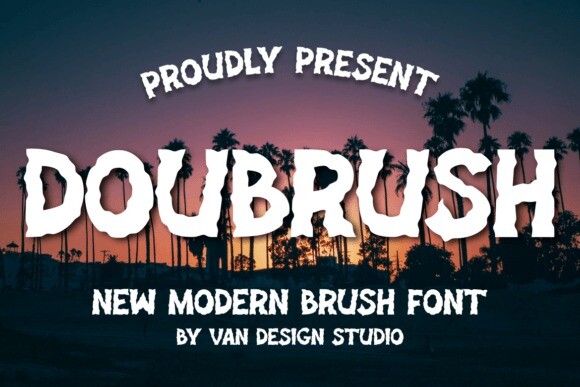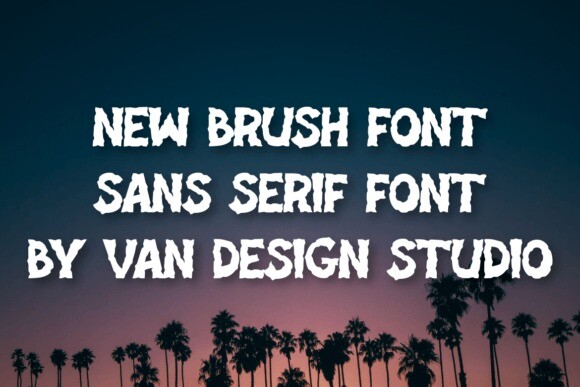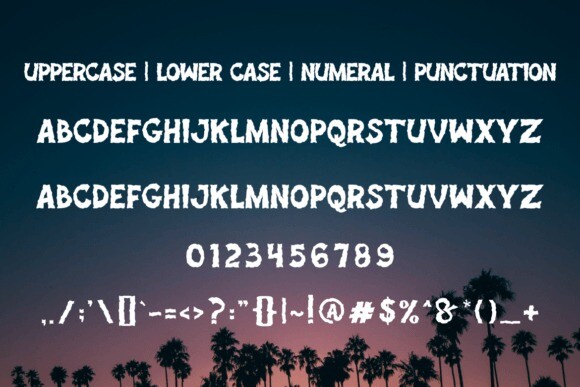
Doubrush Font
Doubrush Font is a unique and interesting display font. A little bit quirky, this font looks incredibly adept on a wide variety of contexts!